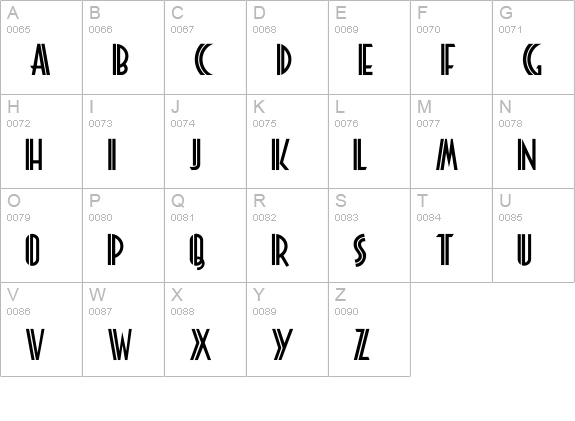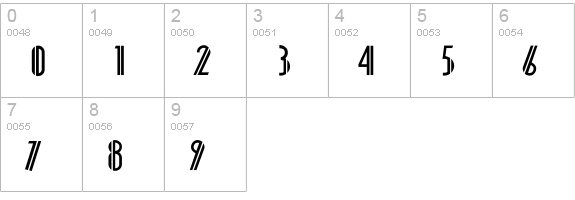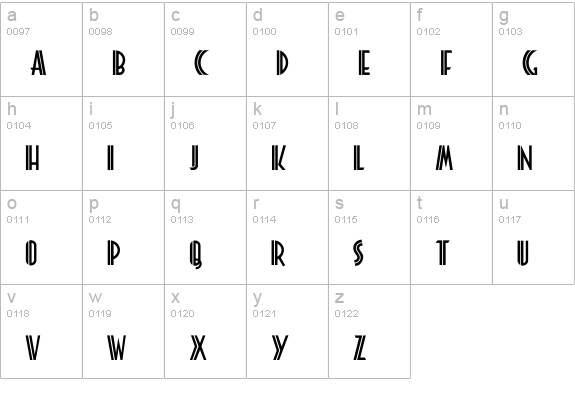
Platonick-Normal is the standard, neutral variant in the Platonick typeface family \xE2\x80\x94 well suited to general body text, paragraphs, and standard typographic work.
Introducing Platonick-Normal font, a versatile and modern typeface that exudes elegance and sophistication. With its sleek lines and contemporary design, Platonick-Normal is perfect for a wide range of projects, from branding to editorial design. This font features a unique blend of classic and modern elements, making it ideal for both print and digital applications. Its clean and easy-to-read style ensures maximum legibility, while its subtle details add a touch of flair and personality. Platonick-Normal is available for free download exclusively at FontsMarket.com. Simply visit the website and add this stunning font to your collection today. Elevate your designs with the timeless beauty of Platonick-Normal font and make a lasting impression on your audience.